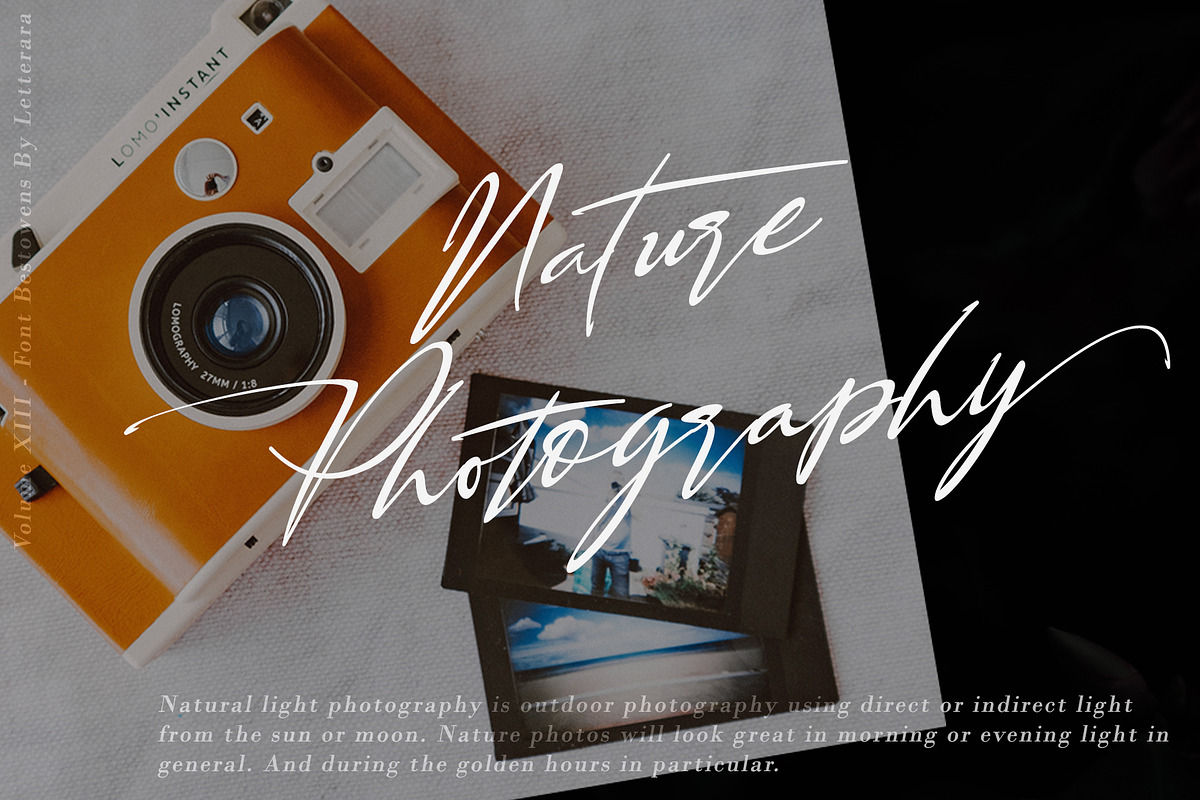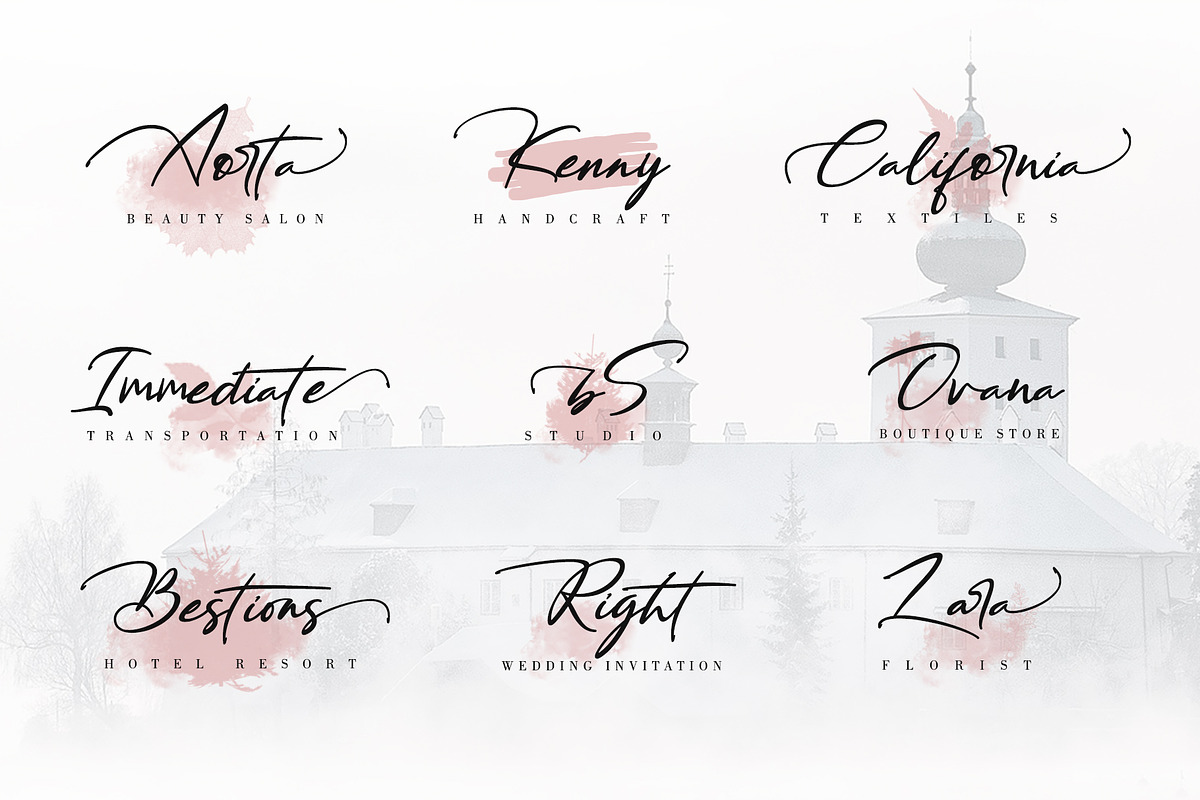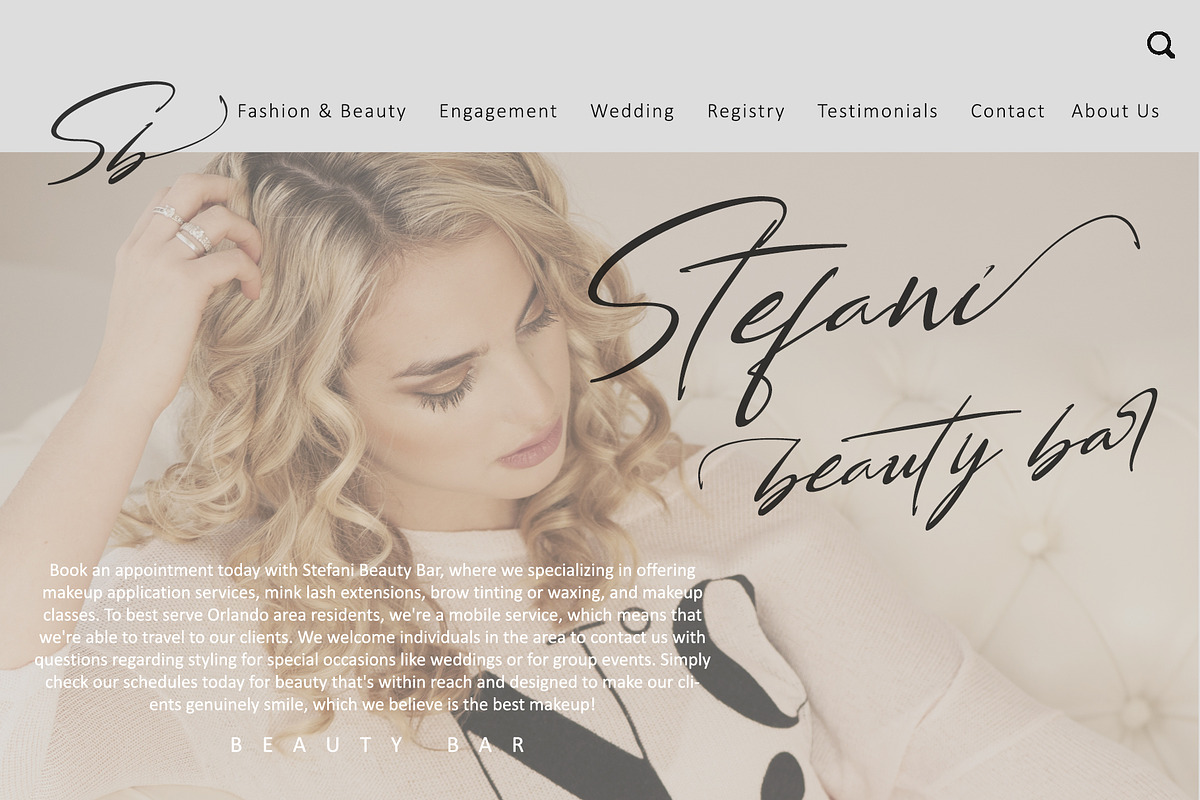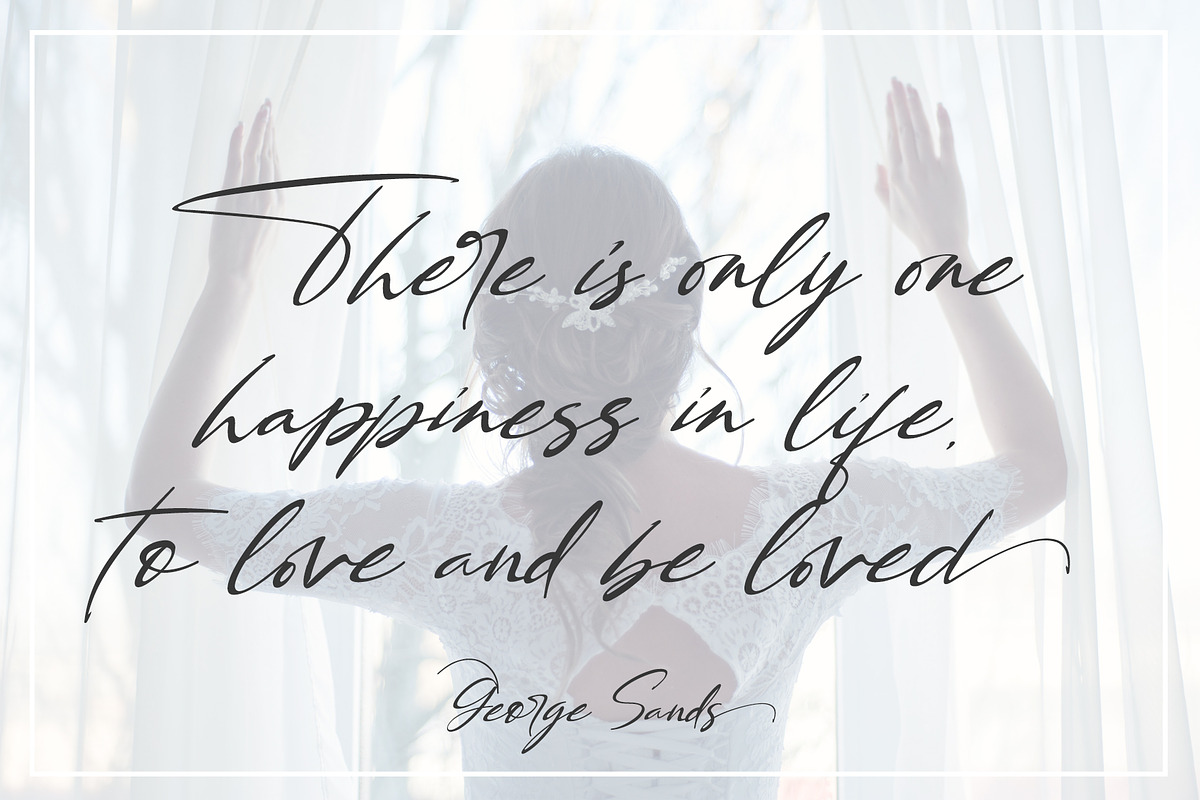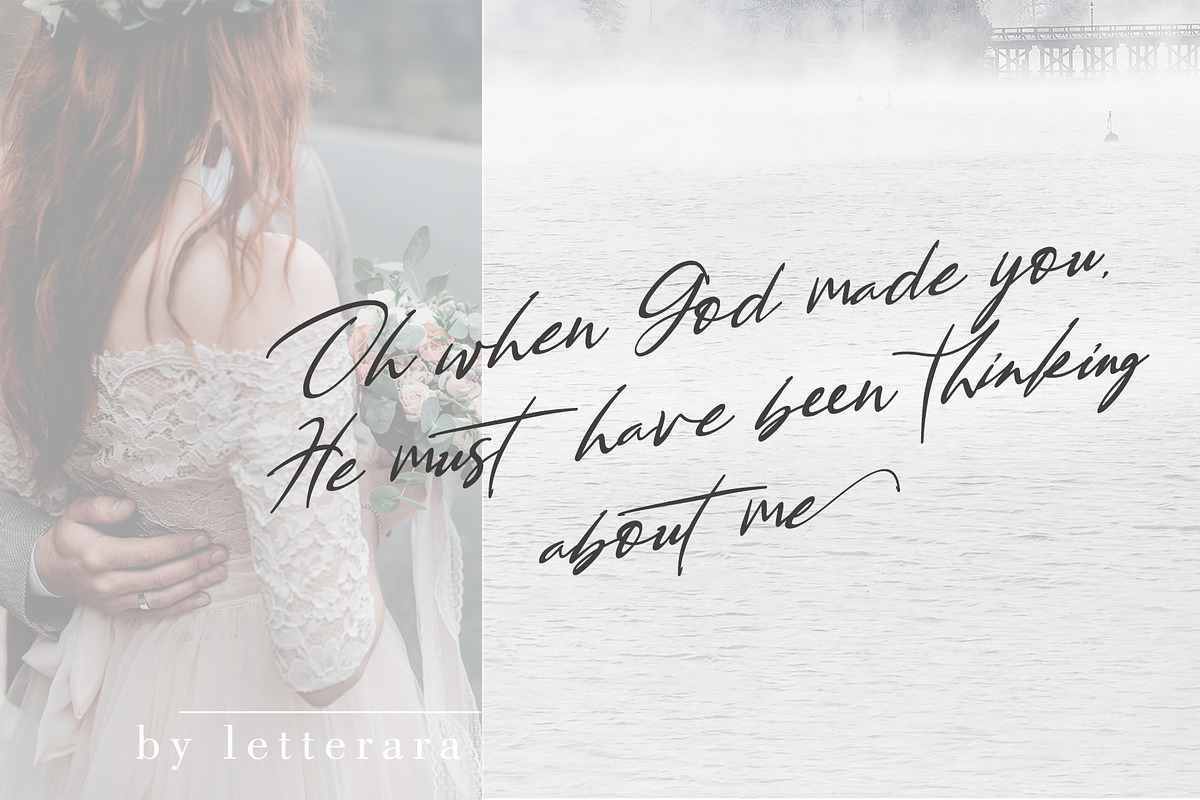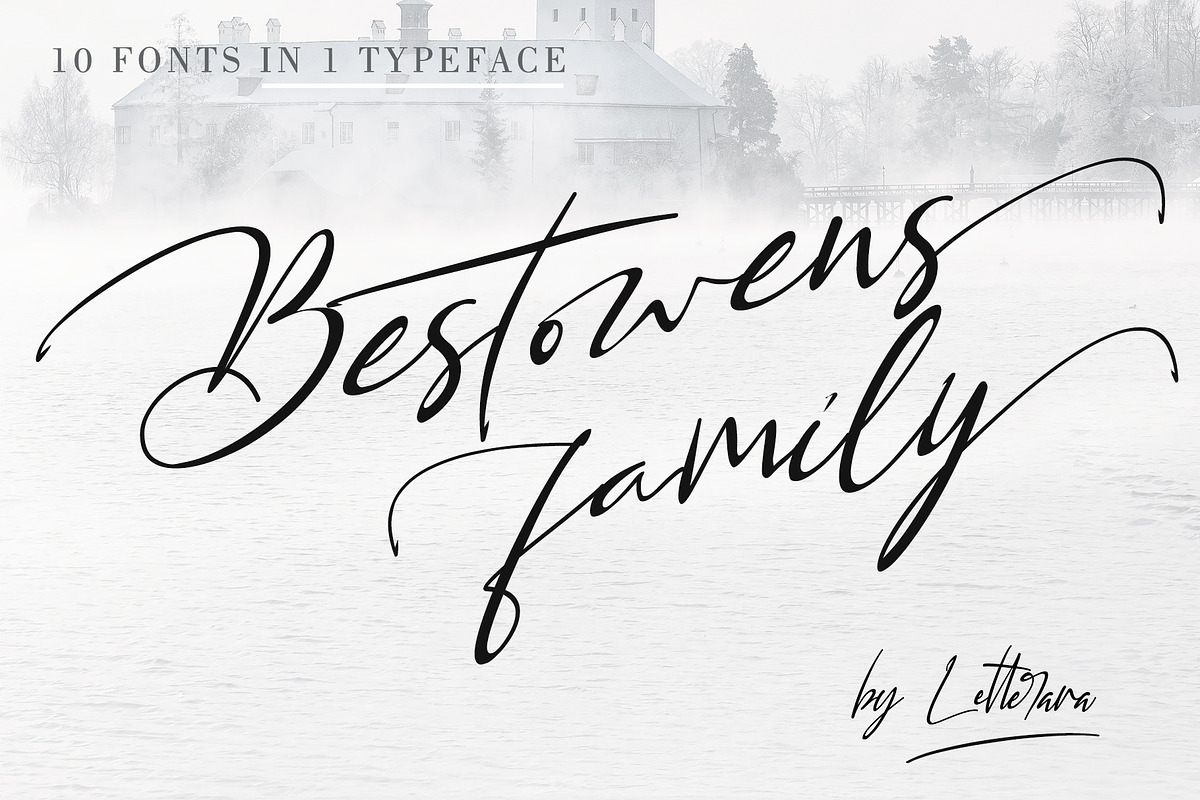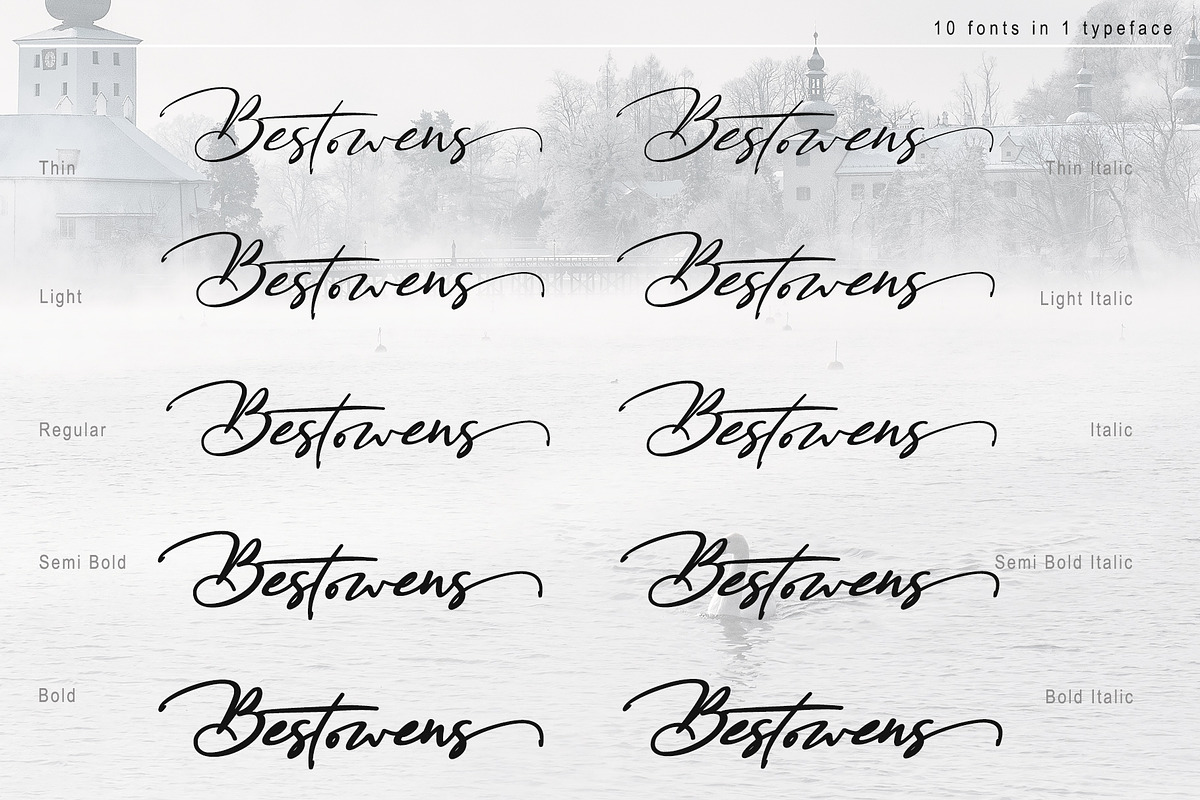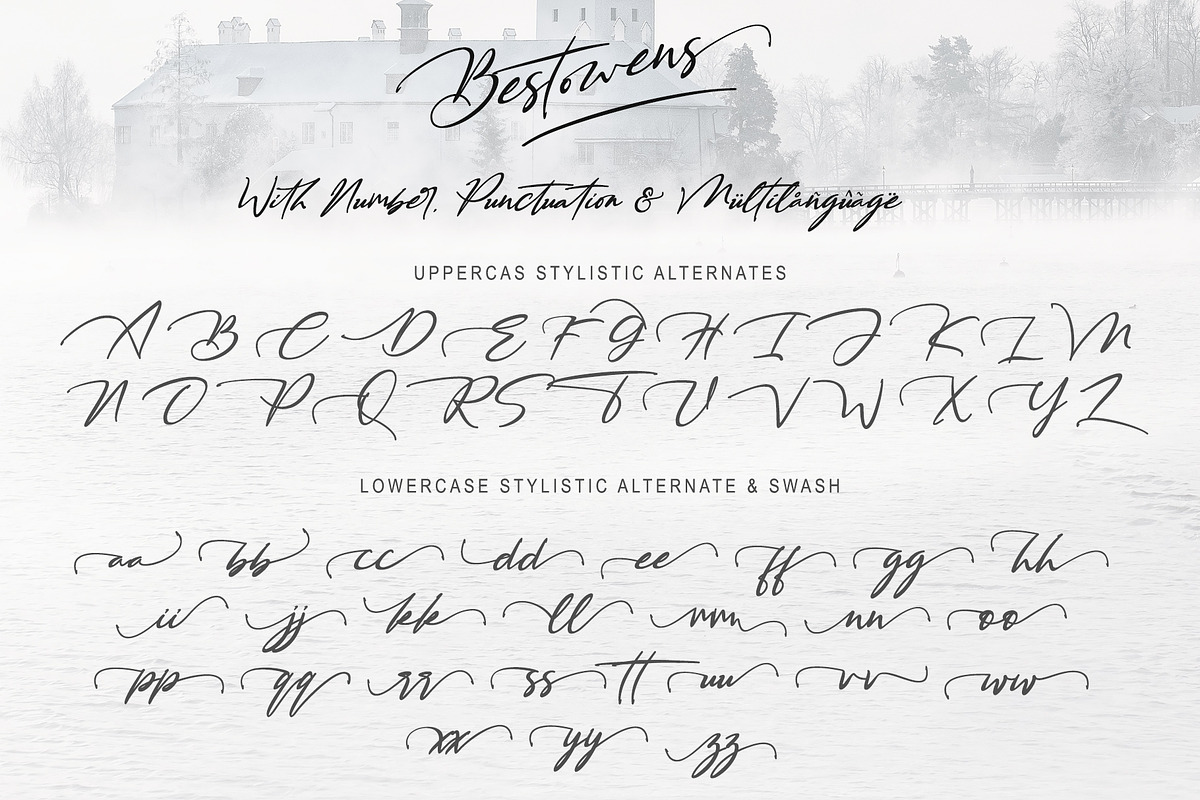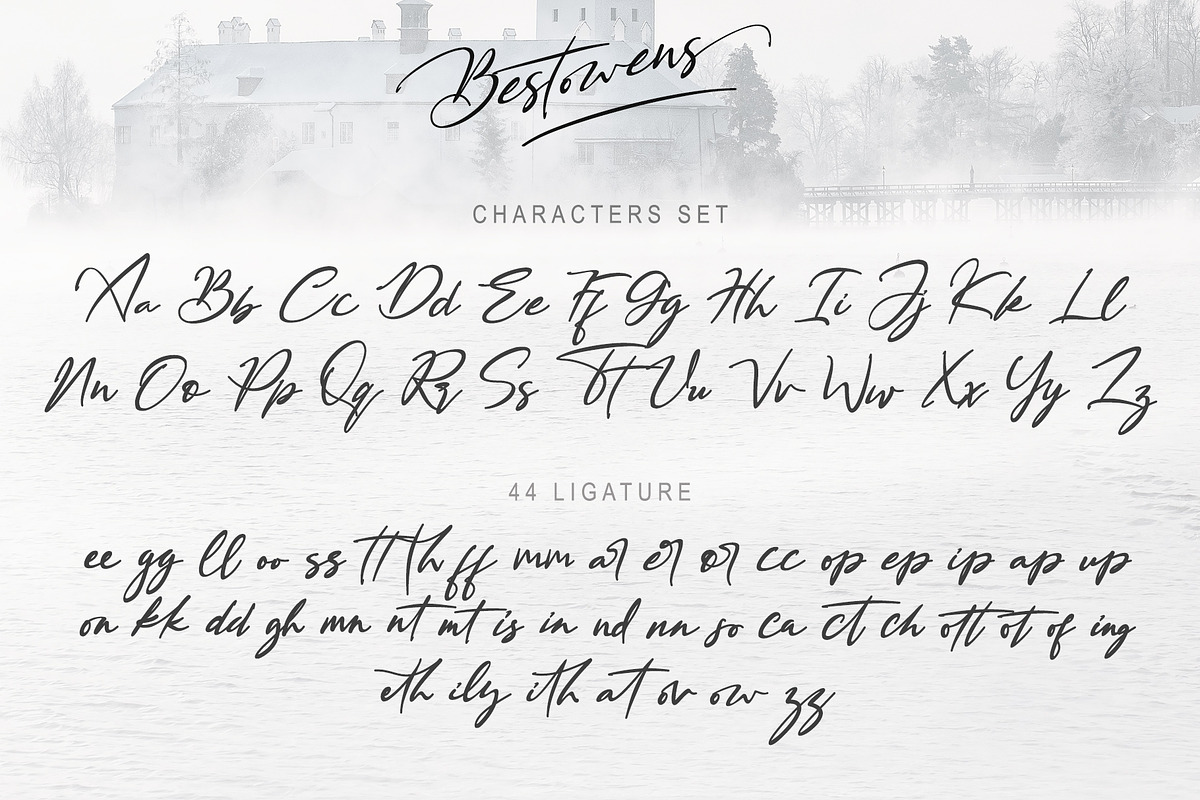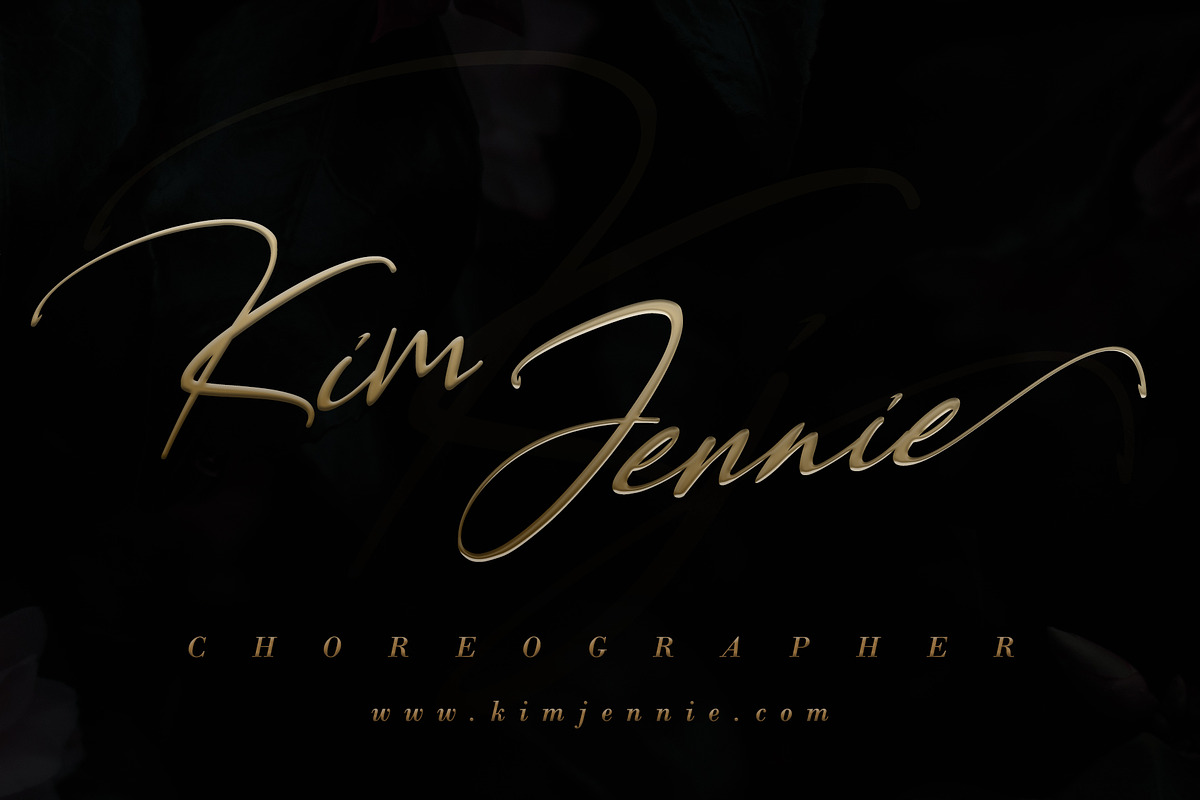
Bestowens Family
Bestowens Family is the perfect handwritten font: Elegant, Sweet, innocent, light, and charming, this one-of-a-kind typeface will add a unique charm to any design project! Bestowens Family font was created to look as close to a natural handwritten script as possible by including 44 ligatures. With built-in Opentype features, this script comes to life as if you are writing it yourself. You can see it in the picture shown.
A wide range of swashes (a-z) and alternates (A-Z, a-z) are included so that you can give your logo or name a custom, hand-calligraphy look. This font is available in 10 Styles in 1 typeface: Thin, Light, Regular, SemiBold, Bold, Thin Italic, Light Italic, Semi Bold Italic, and most importantly, Bestowens Family is perfect for you! don't wait anymore, put it in your shopping basket :)
Many Features:
- Support multilingual; ä ö ü Ä Ö Ü ß ¿ ¡
- lowercase and uppercase letters
- Uppercase alternate, lowercase alternate, swash, & ligature